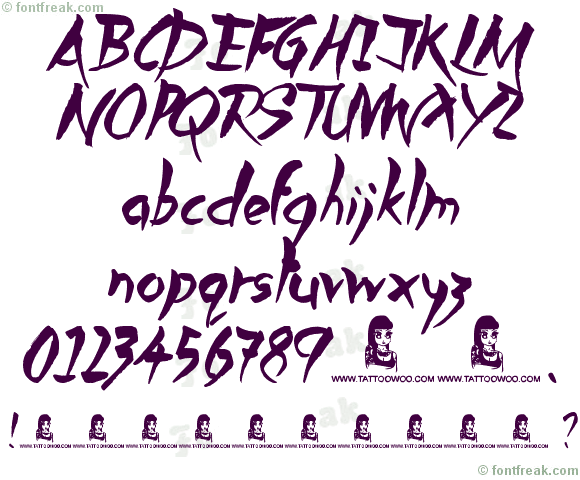
Slowed Down
The "Slowed Down" font by Jonathan S. Harris is a unique handwritten script that embodies a sense of fluidity and artistic flair. This font, categorized under decorative scripts, showcases a varied stroke weight that adds a dynamic and organic feel to text. The letters exhibit a moderate contrast, with some strokes being thicker and others gracefully tapering off, creating an engaging visual experience. The spacing is well-considered, allowing for readability while still maintaining a casual, free-flowing appearance.
This font is ideal for a variety of creative applications. It works beautifully on wedding invitations, where its elegant style can enhance the romantic theme. Additionally, "Slowed Down" is perfect for branding projects, particularly for artisanal and boutique businesses that want to convey a personal touch in their marketing materials. Restaurant menus can also benefit from the font's charm, making dishes appear more inviting and memorable. Content creators looking to add a distinctive flair to their graphics or social media posts will find this font particularly useful as well.
The target audience for the "Slowed Down" font includes graphic designers, small business owners, and content creators who seek to infuse their work with personality and style. It appeals to those who appreciate the art of typography and want to make a lasting impression through their design choices.
What sets the "Slowed Down" font apart is its ability to blend artistic expression with versatility. As a freeware option, it invites designers to explore its potential without financial constraints. Whether you’re curating a heartfelt invitation or crafting eye-catching promotional material, the "Slowed Down font free download" is a valuable addition to any designer’s toolkit. Its distinctive character ensures that your projects will stand out with a personal touch.